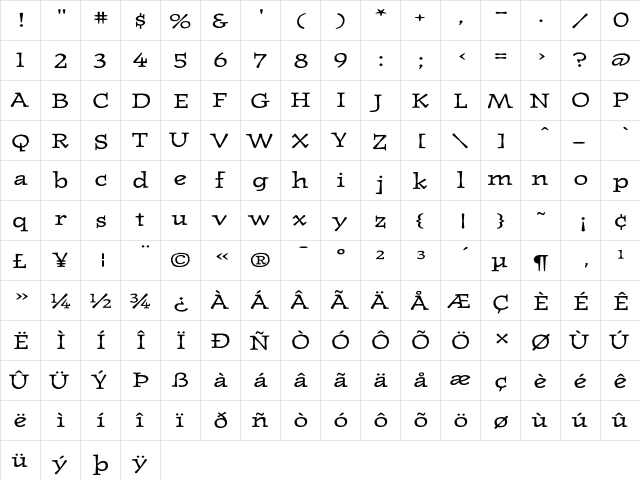
JournalUltraLining Regular
Design Context for JournalUltraLining Typeface
JournalUltraLining offers clean, dependable letterforms without strong stylistic allegiance, making it a practical choice for designers who need flexibility.